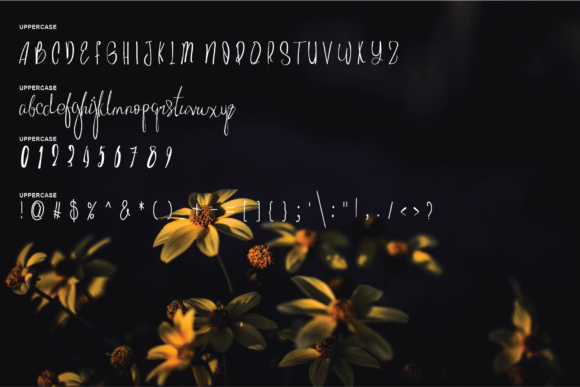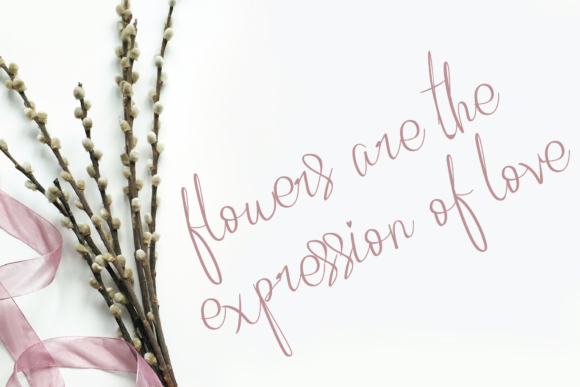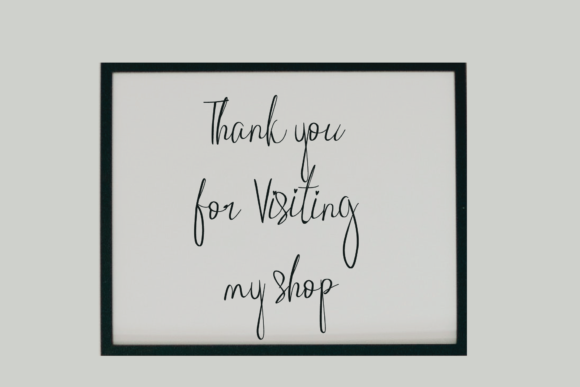
Unleashing Creativity with the Enchanting Beautye Flowers Font
Have you ever stared at a blank canvas, eager to bring a unique idea to life, but struggling to find the perfect words to express your vision? We’ve all been there. For designers and creatives, finding the right font can make all the difference between a beautiful design and a mediocre one.
Enter the magical Beautye Flowers Font, a script font that exudes elegance and sophistication. Whether you’re crafting a stunning Instagram post, designing a wedding invitation, or creating a DIY project, this font is the perfect companion to turn your creative ideas into breathtaking art. Its delicate curves and refined lines will add a touch of whimsy and romance to any design, making it a valuable asset for designers and creatives alike.
With the Beautye Flowers Font, you’ll be able to infuse your designs with a sense of wonder and magic, captivating your audience and leaving a lasting impression. Get ready to unleash your creativity and take your designs to the next level with this enchanting font!
Beautye Flowers Font Key Features
• Font Family: Beautye Flowers is a unique, handwritten font that combines elegance and whimsy.
• Character Set: Beautye Flowers includes a comprehensive set of characters, including uppercase and lowercase letters, numbers, punctuation marks, and special characters.
• Unique Characteristics: The font’s distinctive, hand-drawn style features flowing lines, organic shapes, and subtle imperfections, making it perfect for creative projects that require a personal touch.
Beautye Flowers Font Review
I recently had the chance to work with the Beautye Flowers Font, and I must say, it’s a unique and charming font. ✨ One of the things that caught my attention was its beautiful, hand-drawn style that resembles watercolor flowers. The subtle imperfections and delicate curves make it perfect for designs that need a touch of whimsy.
• The font is incredibly versatile and can be used for a wide range of projects, from invitations and greeting cards to branding and packaging.
• The Beautye Flowers Font comes in a variety of weights and styles, making it easy to find the perfect combination for your design.
However, there are some limitations to consider. ⚠️ The font may not be suitable for all types of projects, especially those that require a more formal or modern look. Additionally, the font’s unique style may not be to everyone’s taste.
Overall, I think the Beautye Flowers Font is a great addition to any designer’s toolkit. It’s perfect for designers who want to add a touch of elegance and whimsy to their projects. With its unique style and versatility, it’s a font that’s sure to inspire creativity and add a personal touch to any design.
To get the most out of the Beautye Flowers font, use it for:
• Wedding invitations and stationery
• Floral-themed designs and graphics
• Whimsical and playful designs
The Beautye Flowers font is commonly used for:
• Floral-inspired branding and logos
• Wedding and event invitations
• Children’s book illustrations and designs
What is the recommended font size for using Beautye Flowers Font?
The recommended font size for using Beautye Flowers Font is between 12pt and 24pt. However, this may vary depending on your design’s specific requirements and the intended use of the font.